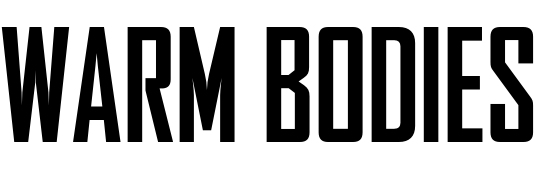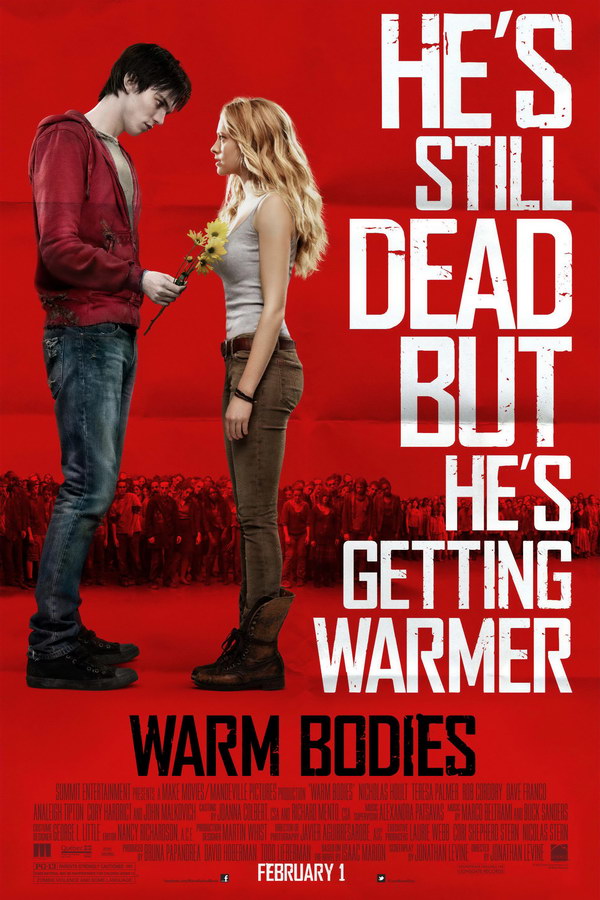
Warm Bodies Font
Fonts in UseWarm Bodies is a 2013 romantic comedy film based on the novel of the same name by Isaac Marion. It tells the story of a zombie who falls in love with a human and tries to protect her from his fellow undead.
It's likely that the movie's title on the poster was created with the use of Agency FB Condensed Bold font, complemented by eroded and grunge effects for a more rugged look. Agency FB is a commercial font developed by David Berlow and Morris Fuller Benton.